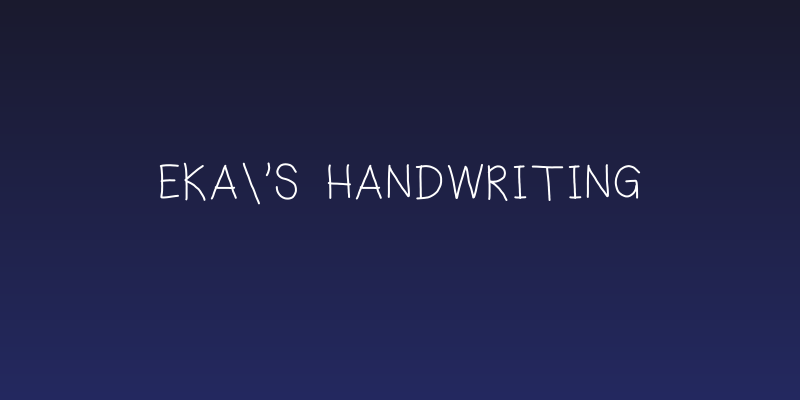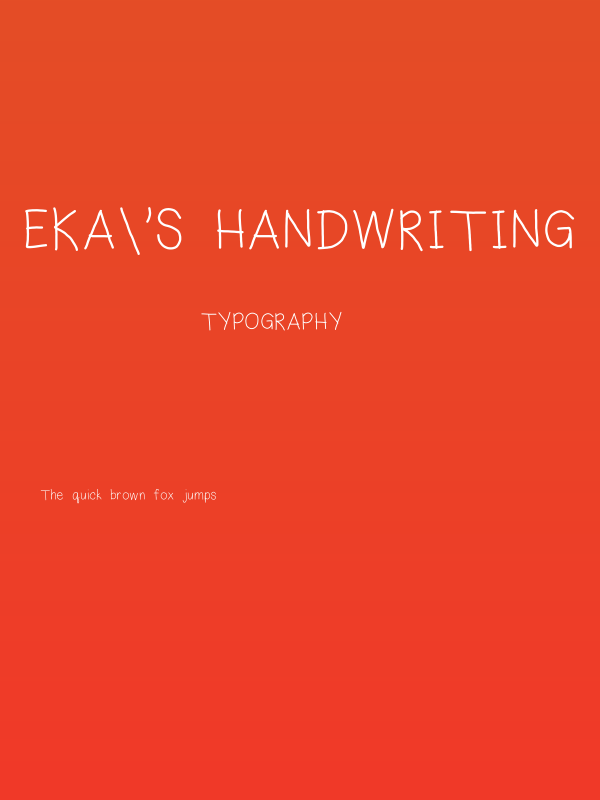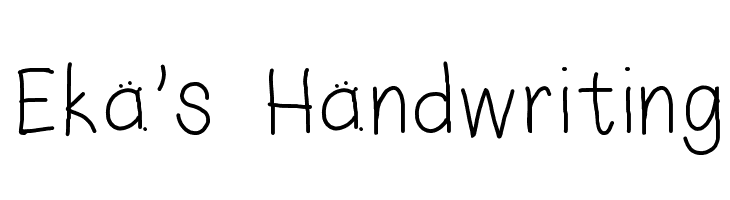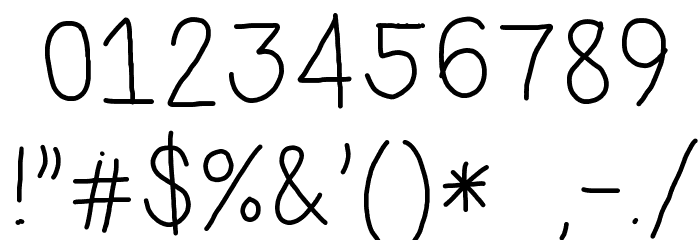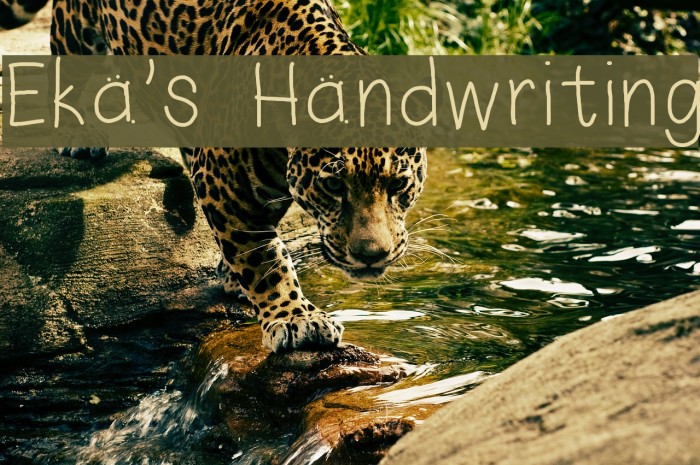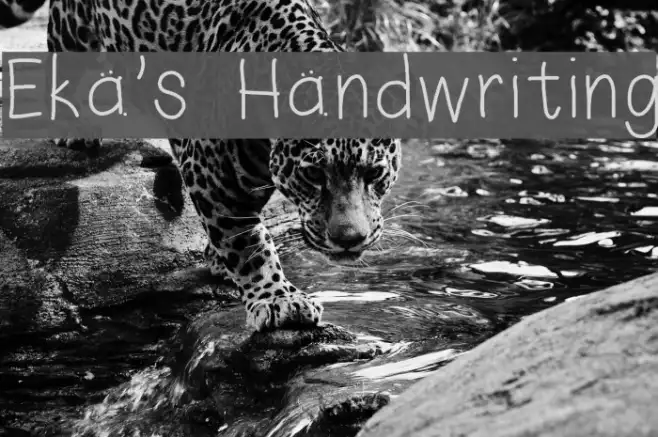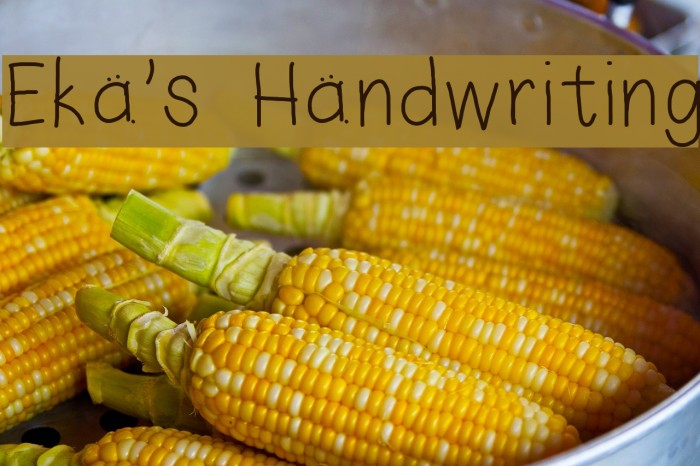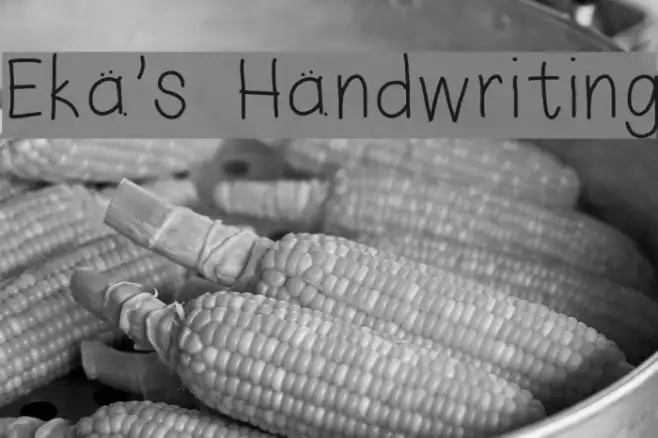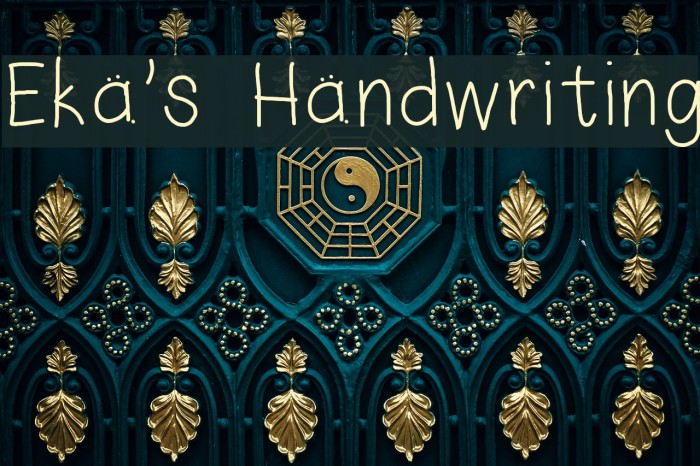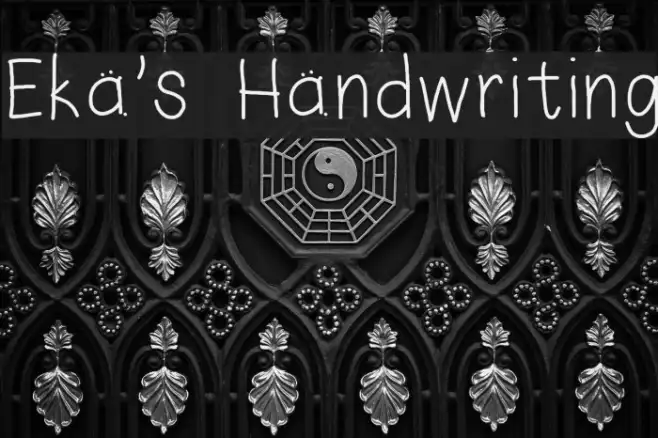
Eka's Handwriting Font
Eka's Handwriting Description
This font exudes a casual, handwritten style with a playful and informal appearance. The characters are slightly irregular, mimicking the natural flow of handwriting. The uppercase letters are tall and narrow, while the lowercase letters maintain a consistent height, contributing to a cohesive look. The numerals and special characters follow the same handwritten aesthetic, ensuring uniformity across all glyphs. The strokes are consistent in width, providing a balanced and harmonious feel. This font is perfect for projects that require a personal touch, such as invitations, greeting cards, or any design that aims to convey warmth and approachability.
| Use Case | Headlines, Informal text, Personal notes |
| Proposed Projects | Ideal for invitations, greeting cards, personal notes, and informal branding. |